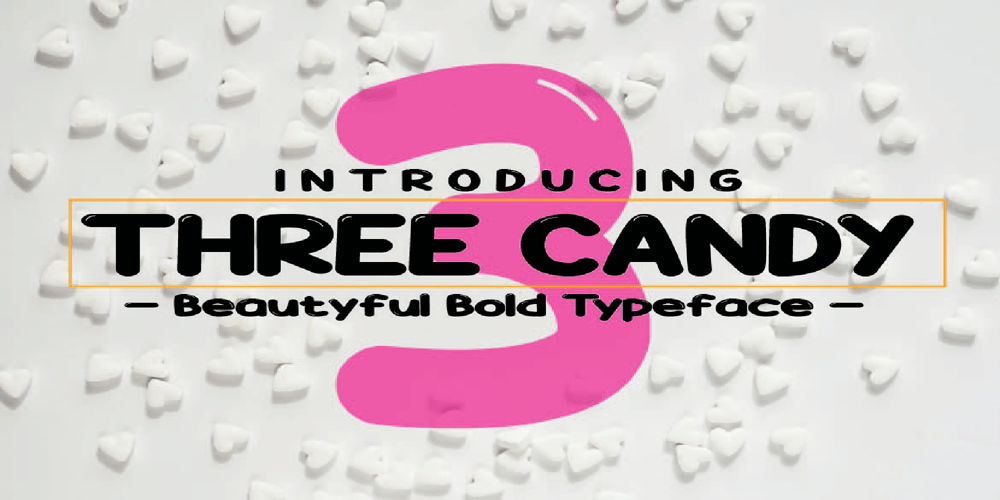
Three Candy Font Family was designed by akhmad rizki cahyadi and published by Mazkicibe. Three Candy contains 1 styles and family package options. Three Candy Font is Sans Serif and modern font combined with a sweet touch and beautifully curved each letter. using a touch of soft curves so that it is pleasing to the eye.Three Candy Font Spirit is great for: Wedding invitations, fashion magazines, logos, signatures, and suitable for watermark photography.